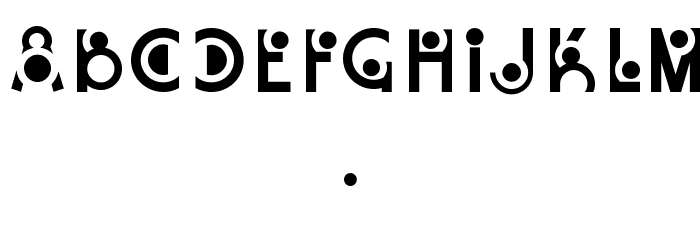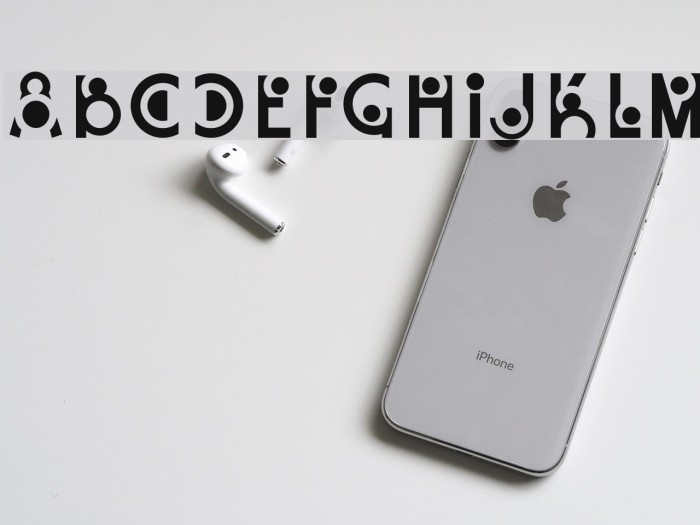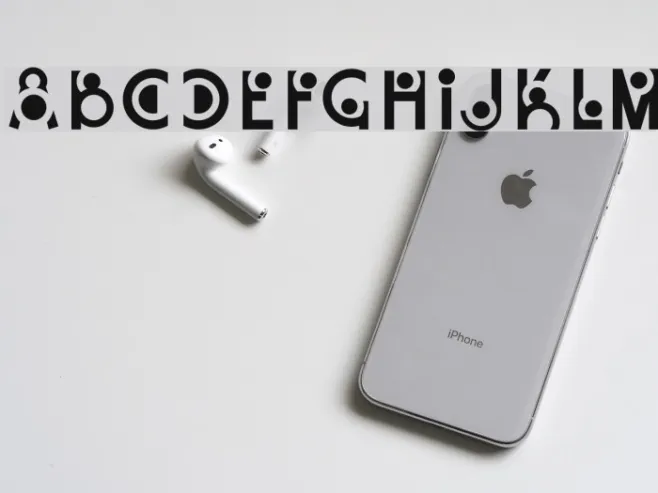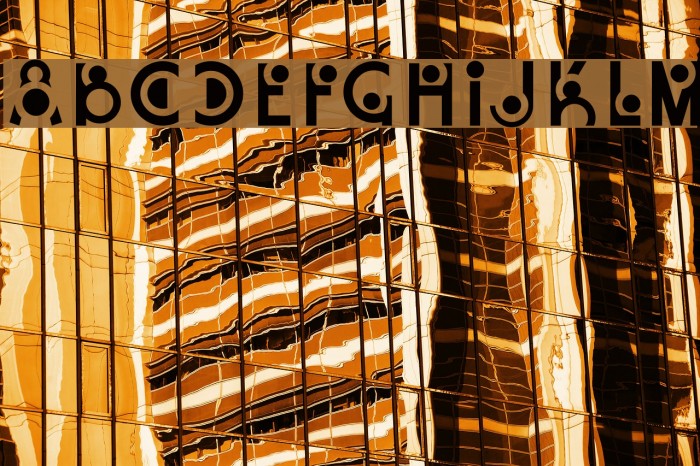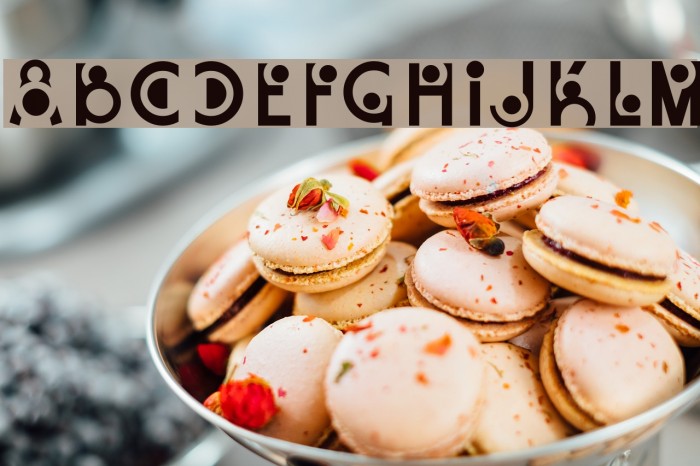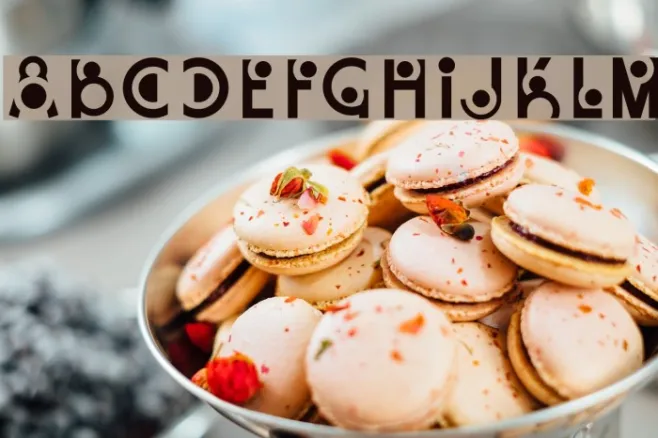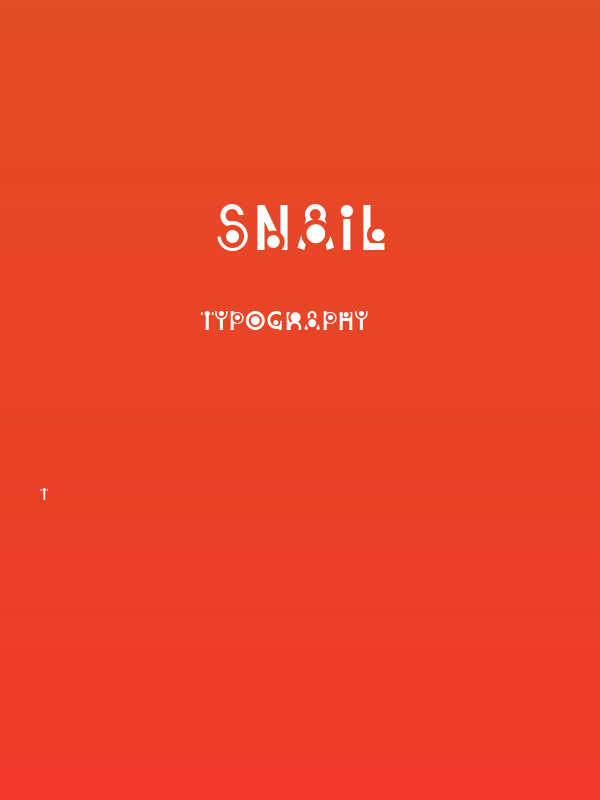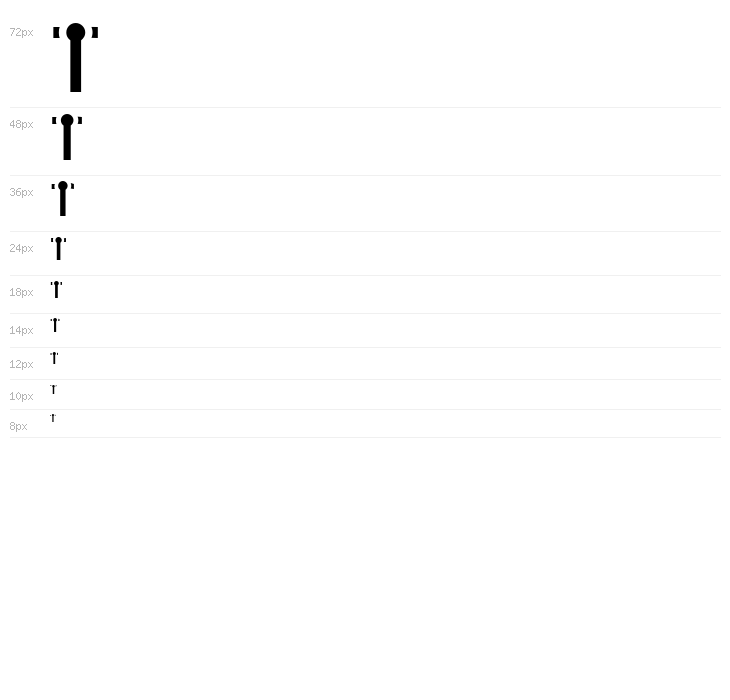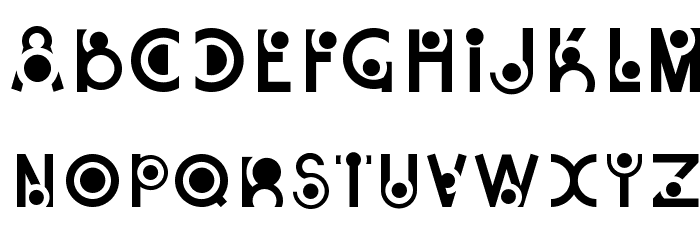
Snail Font
Snail Description
This font features a bold and geometric design with a unique, playful twist. Each character is crafted with a combination of solid shapes and circular cutouts, creating a visually striking appearance. The letters are uniform in width, contributing to a balanced and cohesive look. The style is reminiscent of modern art deco, with a futuristic touch that makes it stand out. The font's boldness and distinctiveness make it ideal for creative projects that require a strong visual impact.
HoopDesign Typography - Jonathan Hooper